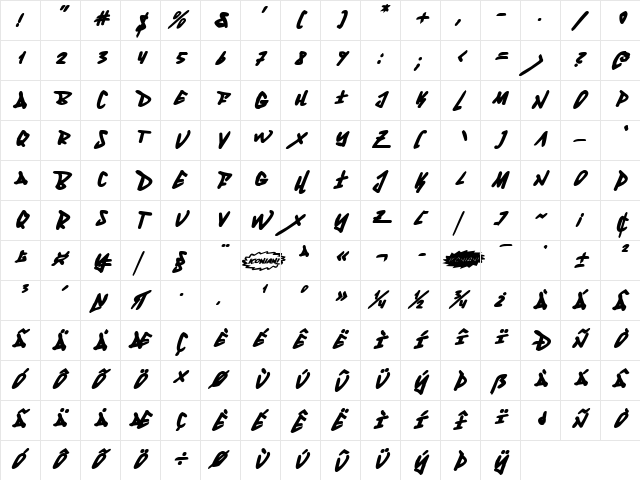
Fantom Bold Italic Bold Italic
Design Context for Fantom Bold Italic Typeface
Fantom Bold Italic is a composed and adaptable typeface that performs quietly and consistently across a wide range of design contexts. Its italic angle brings a sense of urgency and motion to the letterforms. Its bold stroke weight gives it real presence on the page.
Pro Tip: Use Fantom Bold Italic for emphasis, pull quotes, and subheadings where its slanted energy can add rhythm to the layout.